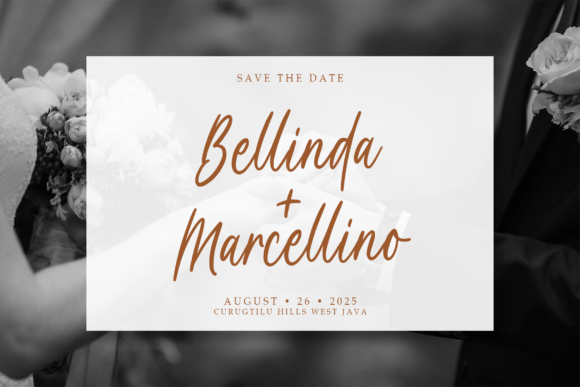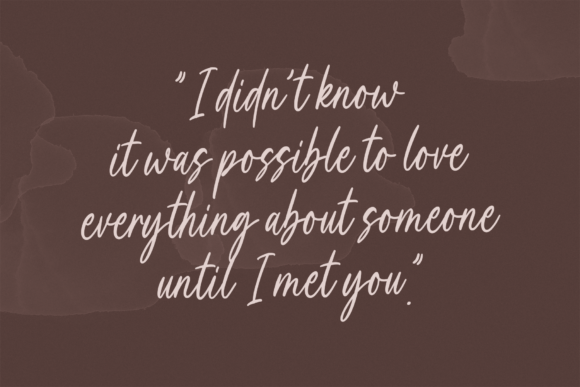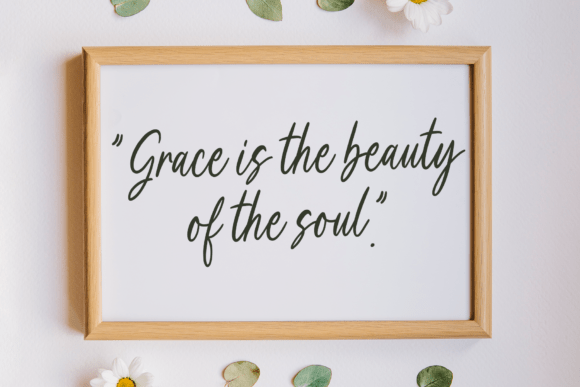
Introduction to Hello Serattine Font
Hello Serattine is a charming handwritten script font that exudes warmth and a personal touch.
Its flowing, smooth strokes give it a friendly, modern appeal, making it perfect for a variety of creative applications This font is ideal for projects that require an intimate, stylish feel, such as wedding invitations, greeting cards, branding materials, and social media posts.
Key Features of Hello Serattine Font
Why Choose Hello Serattine Font?
Hello Serattine Font offers exceptional quality and versatility, making it a valuable addition to your design toolkit. Whether you’re creating for personal projects or commercial use, Hello Serattine Font delivers professional results.